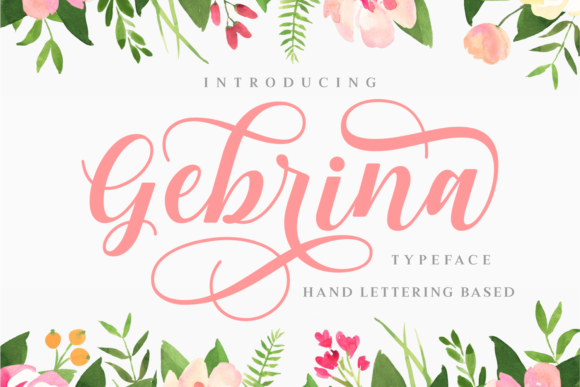
Introducing Gebrina Font: The Fun and Feminine Typeface for Your Design Needs
Are you looking for a typeface that can add a touch of elegance and playfulness to your design? Look no further than Gebrina Font. This fun and feminine looking typeface is perfect for designers who want to create a classy and playful feel in their work. In this article, we’ll take a closer look at Gebrina Font and its features, and explore how it can elevate your design to the next level.
What is Gebrina Font?
Gebrina Font is a modern typeface designed to bring a sense of fun and femininity to your design. Its elegant and cursive lines make it perfect for use in a variety of design projects, from branding and advertising to packaging and digital media. The font comes with a range of features that make it versatile and easy to use, including beautiful stylistic alternates that can be used to add a touch of personality to your text.
Key Features of Gebrina Font
So, what makes Gebrina Font so special? Here are some of its key features:
- Fun and feminine design: Gebrina Font has a playful and elegant design that is perfect for creating a feminine and sophisticated look in your design.
- Beautiful stylistic alternates: The font comes with a range of stylistic alternates that can be used to add a touch of personality to your text. These alternates include swashes, ligatures, and other decorative elements that can be used to create a unique and eye-catching look.
- Classy and playful feel: Gebrina Font is designed to give your design a classy and playful feel. Its elegant lines and playful alternates make it perfect for use in a variety of design projects, from luxury branding to playful advertising.
How to Use Gebrina Font in Your Design
So, how can you use Gebrina Font in your design? Here are some ideas to get you started:
- Branding and advertising: Gebrina Font is perfect for use in branding and advertising projects, such as logos, business cards, and billboards. Its elegant and playful design makes it ideal for creating a sophisticated and eye-catching look.
- Packaging design: Gebrina Font can be used in packaging design to add a touch of elegance and playfulness to your product packaging. Its beautiful stylistic alternates make it perfect for use in labels, tags, and other packaging materials.
- Digital media: Gebrina Font can be used in digital media, such as social media graphics, website headers, and email newsletters. Its clean and elegant design makes it perfect for use on digital platforms.
Benefits of Using Gebrina Font
So, why should you use Gebrina Font in your design? Here are some benefits of using this fun and feminine typeface:
- Adds elegance and sophistication: Gebrina Font can add a touch of elegance and sophistication to your design, making it perfect for use in luxury branding and advertising projects.
- Creates a playful feel: Gebrina Font’s playful alternates and elegant lines make it perfect for creating a playful feel in your design. This makes it ideal for use in advertising and marketing materials.
Tips for Using Gebrina Font Effectively
Here are some tips for using Gebrina Font effectively in your design:
- Use it sparingly: Gebrina Font is a bold and eye-catching typeface, so use it sparingly to avoid overwhelming your design.
- Experiment with alternates: Gebrina Font comes with a range of stylistic alternates, so experiment with different alternates to find the one that works best for your design.
- Pair it with other fonts: Gebrina Font can be paired with other fonts to create a unique and eye-catching look. Experiment with different font combinations to find the one that works best for your design.
Gebrina Font is a fun and feminine typeface that can add a touch of elegance and playfulness to your design. Its beautiful stylistic alternates and elegant lines make it perfect for use in a variety of design projects, from branding and advertising to packaging and digital media. With its versatility and ease of use, Gebrina Font is a great choice for designers who want to create a classy and playful feel in their work.
- What is Gebrina Font?: Gebrina Font is a fun and feminine typeface designed to bring a sense of elegance and playfulness to your design.
- What are the key features of Gebrina Font?: Gebrina Font comes with beautiful stylistic alternates, elegant lines, and a playful design that makes it perfect for use in a variety of design projects.
- How do I use Gebrina Font in my design?: Gebrina Font can be used in a variety of design projects, including branding and advertising, packaging design, and digital media.